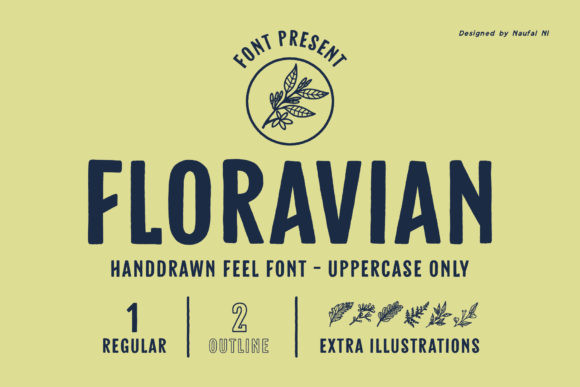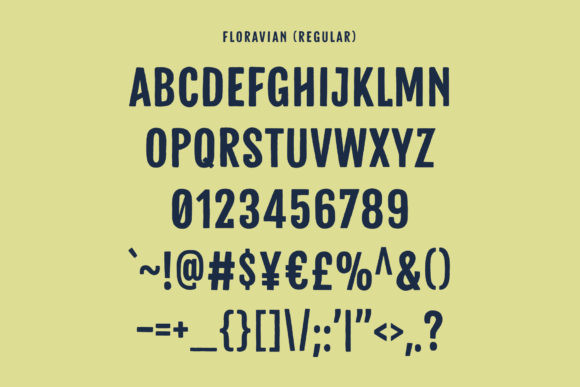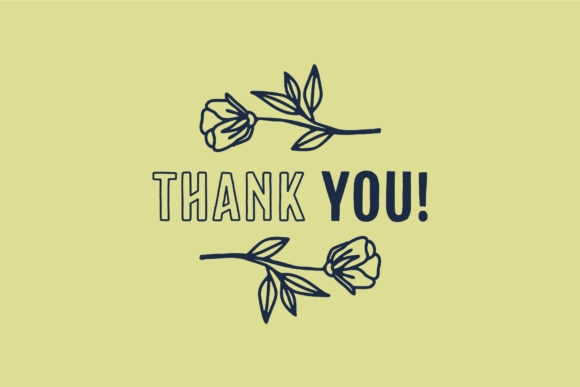
Floravian Font
Floravian is a strong display font. It has a retro and vintage feel and comes in two styles: regular and outline. This amazing font is perfect for logos, packaging, posters, t-shirt and much more!